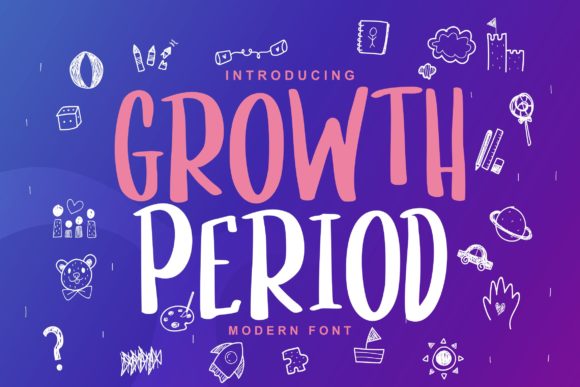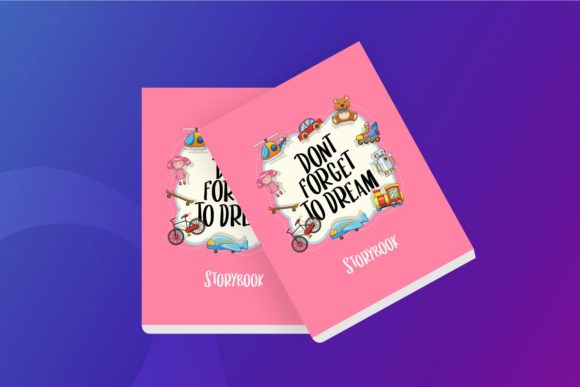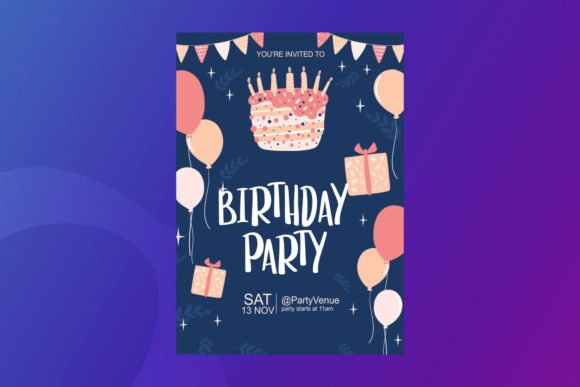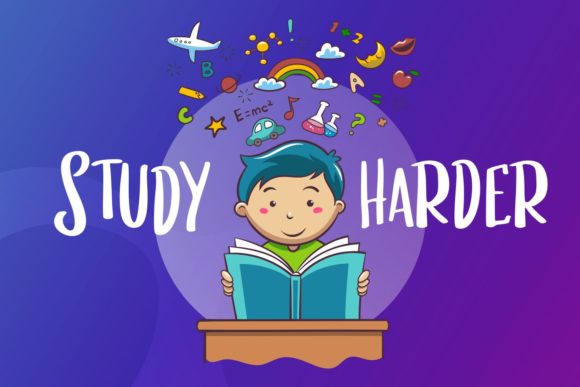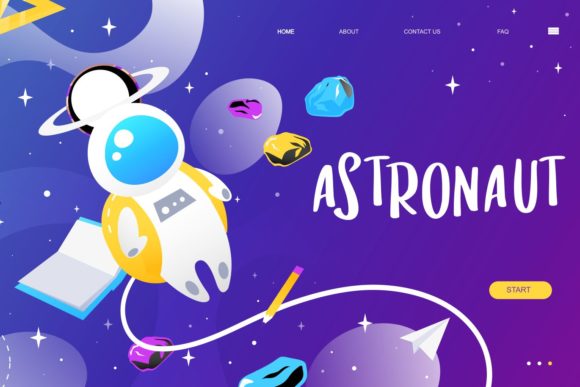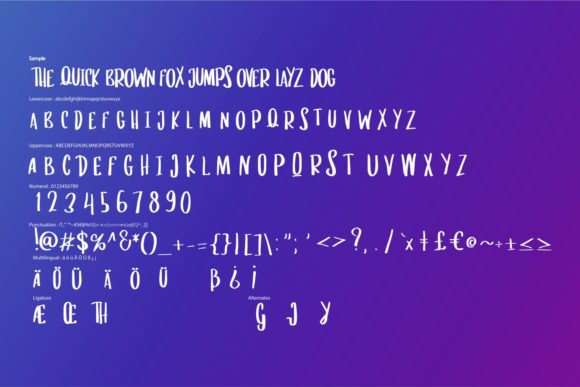
Growth Period Font
About Growth Period Font
Growth Period is a beautiful handwritten font featuring irregular characters. It is perfectly suited for a wide variety of projects!